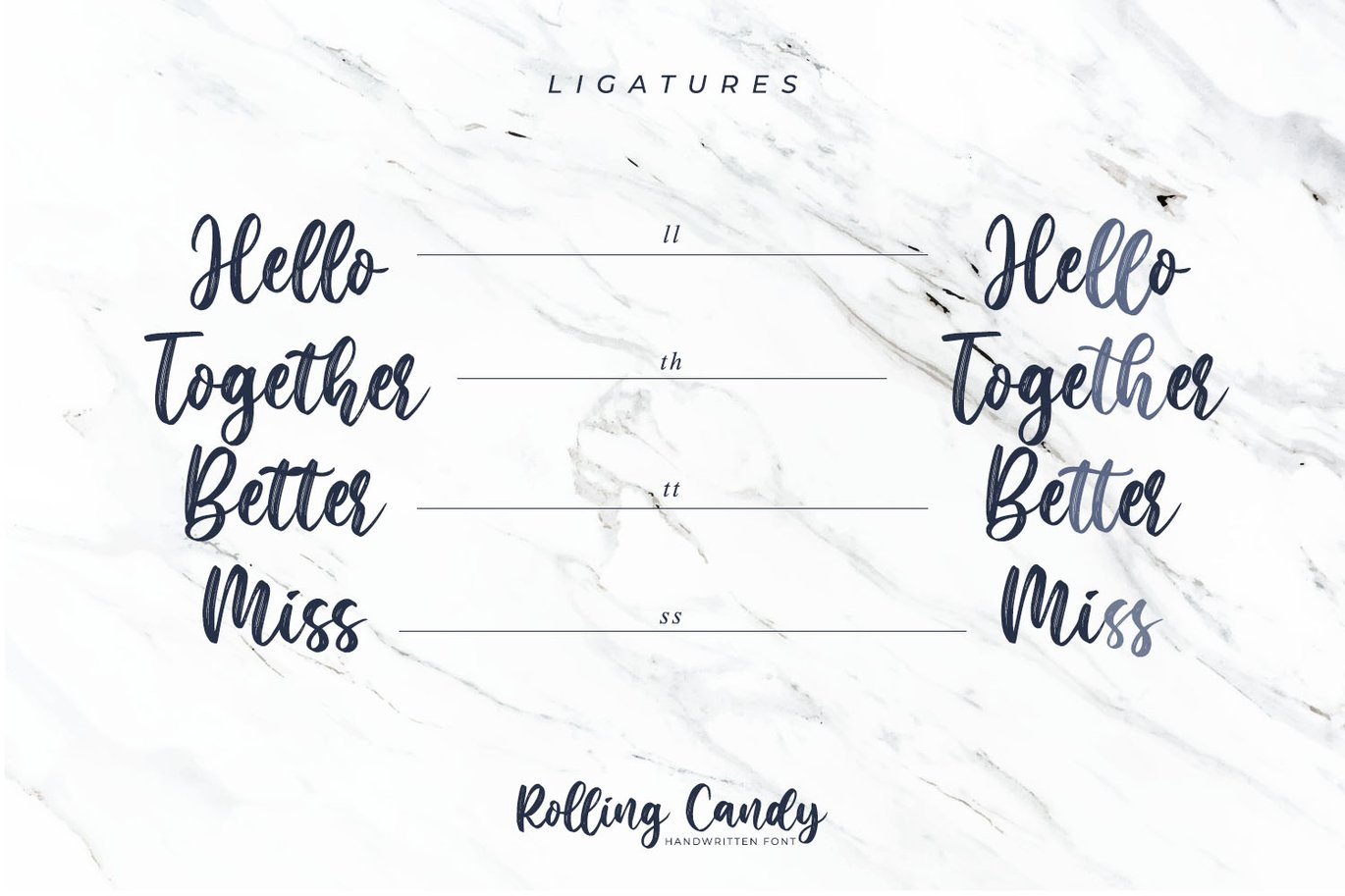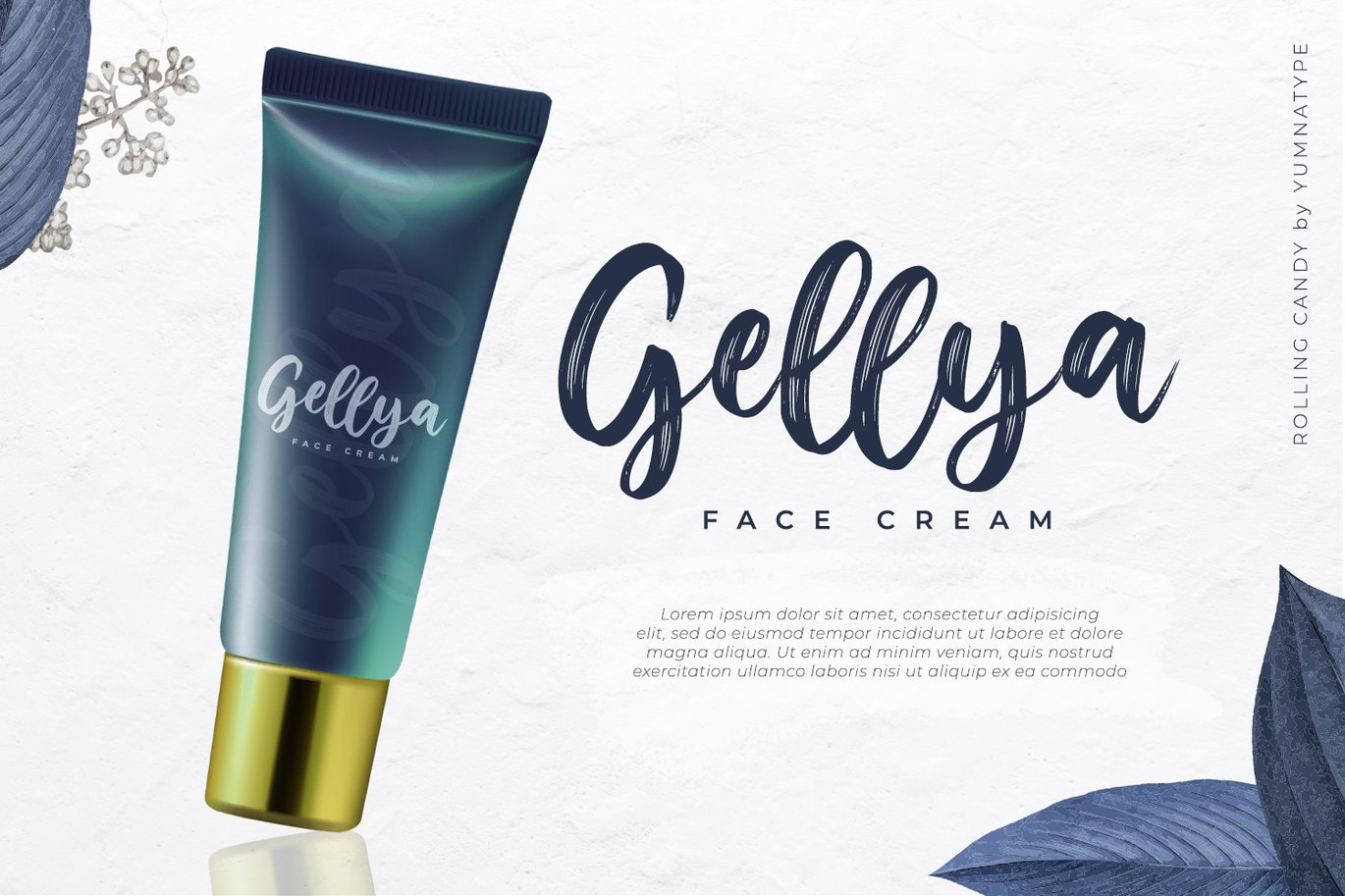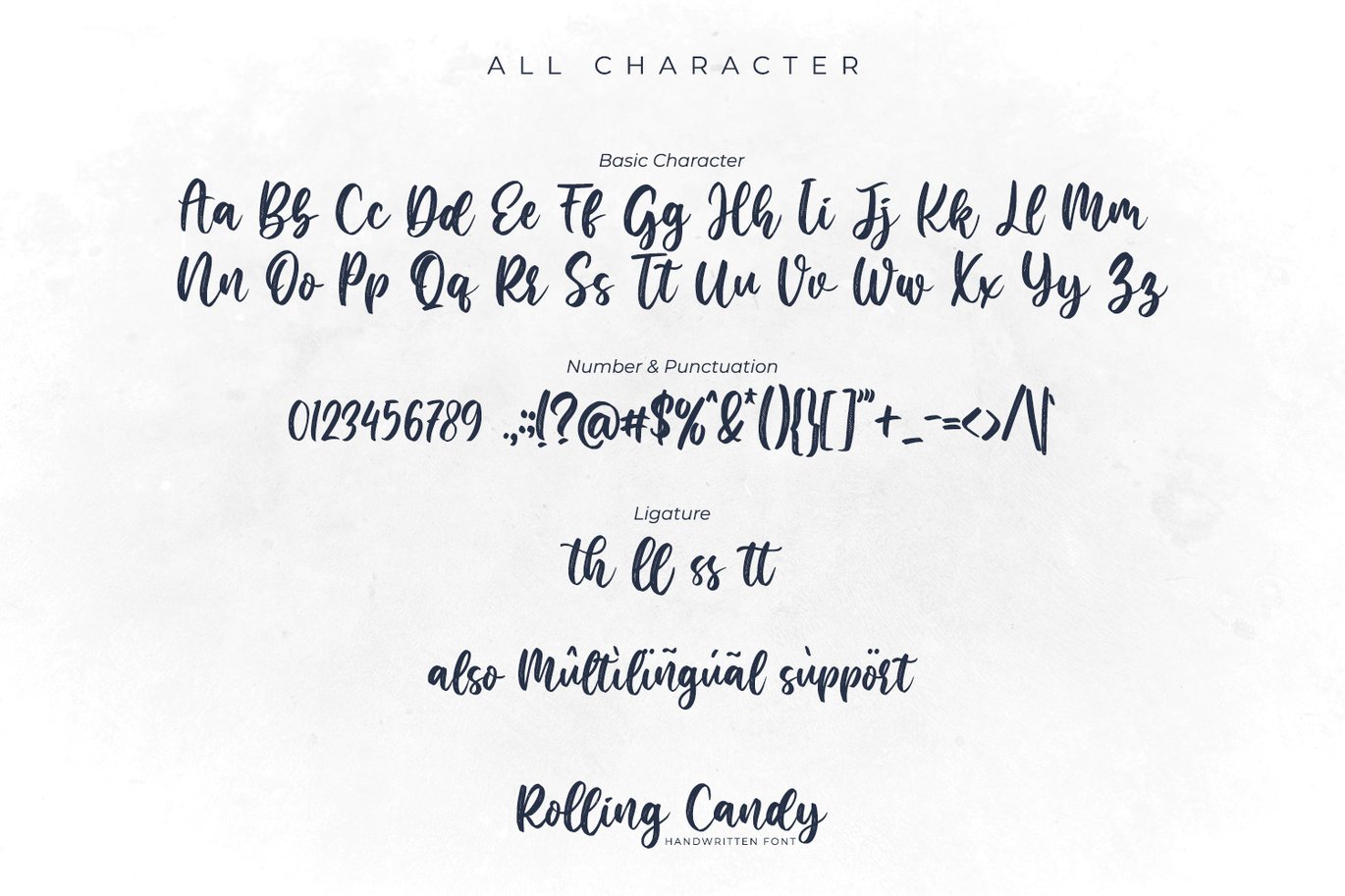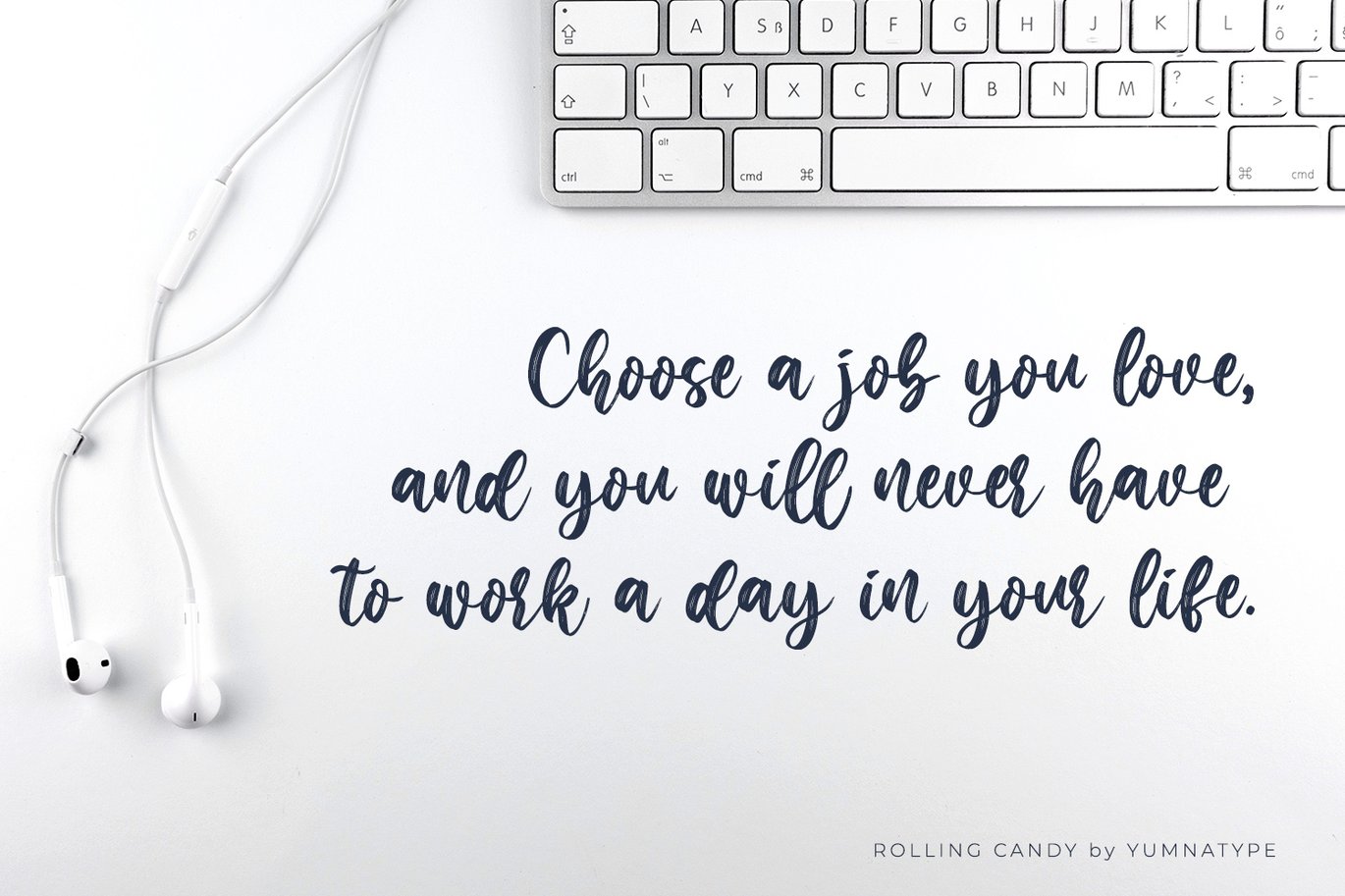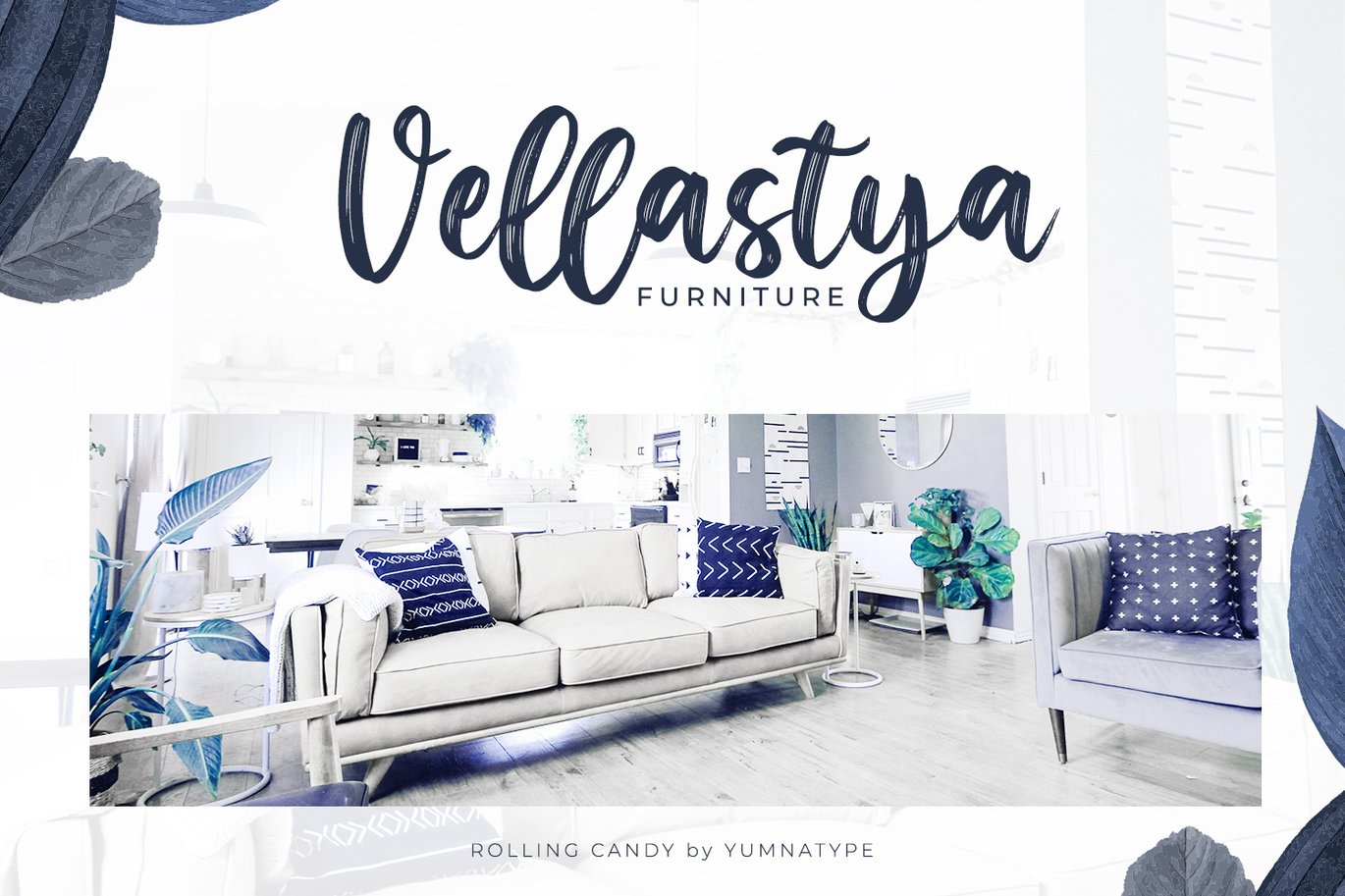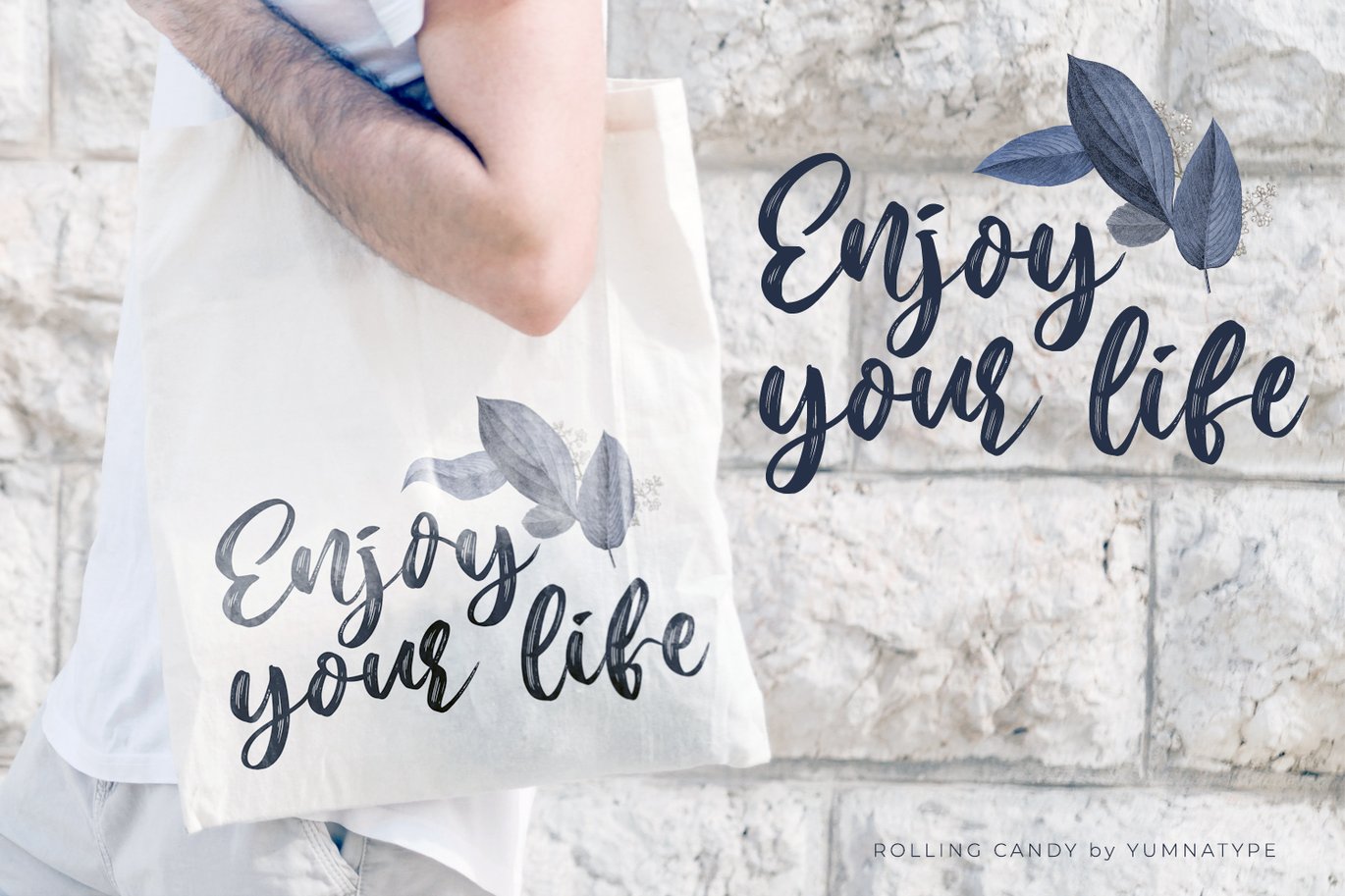
Rolling Candy-Beautiful Handwritten Font
*Rolling Candy is a beautiful handwritten font with a natural and unique design will make your project more beautiful. The font is suitable for your branding project, printing, logos dan wedding.
- Beautiful Ligatures
- Numeral and Punctuation